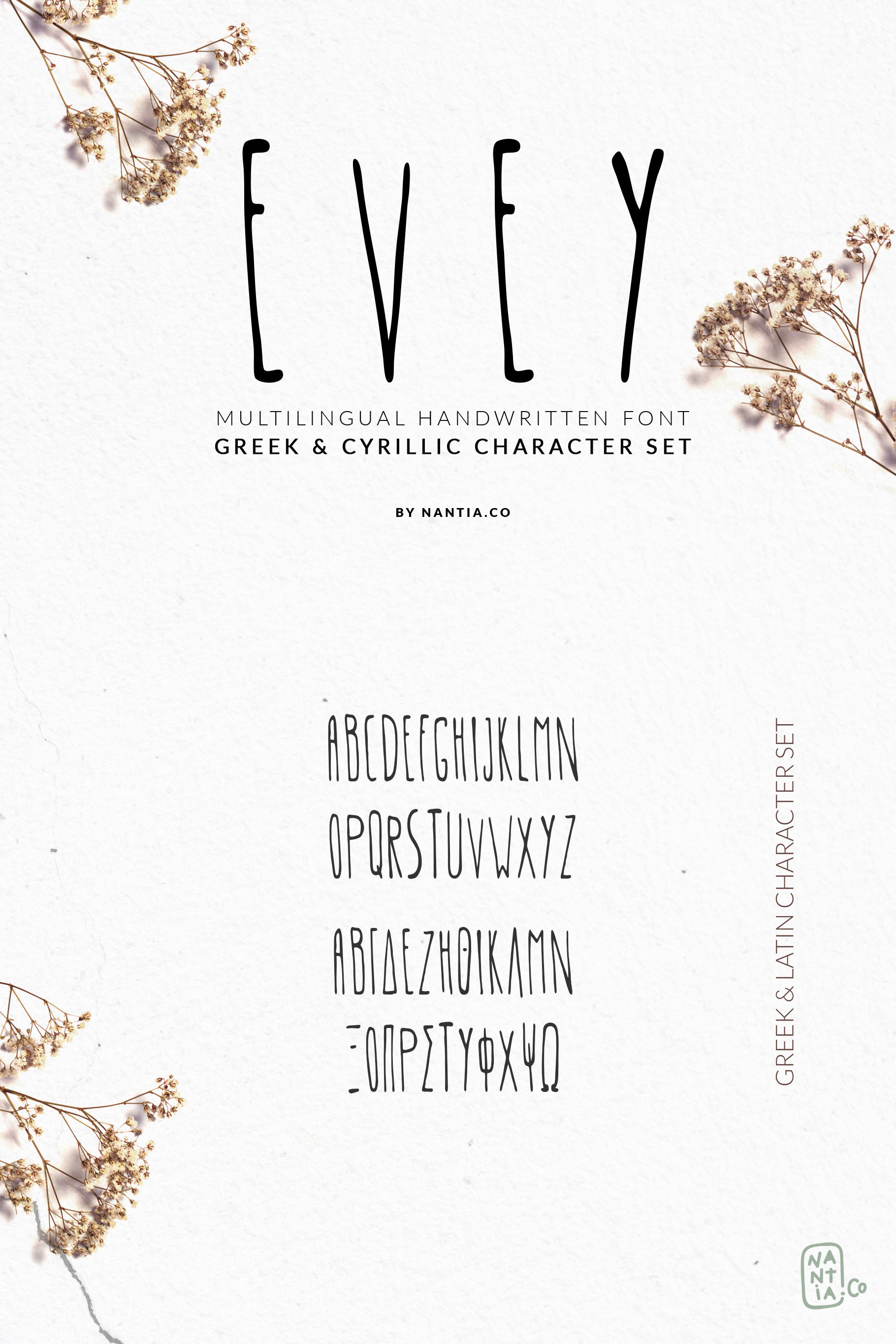
EVEY Greek Cyrillic handwritten Font
EVEY Handcrafted Multilingual Font | Latin / Greek / Cyrillic
I’m very glad to introduce Evey Handcrafted Multilingual Font | Latin / Greek / Cyrillic, a high quality, multilingual, handwritten font. The wide range of multilingual support of the font makes it ideal for international food packaging. Because of the unique style of the typeface, is the perfect design tool for natural organic product packaging and branding, as one can describe it as a logo font.
Of course, this lettering font is perfect for your graphic design needs like social media quotes, blog headers, and why not posters and stationery.
Finally, EVEY font supports over 20 languages: Albanian, Basque, Breton, Catalan, Chamorro, Chichewa_nyanja, Cyrillic, Danish, Dutch, English, Estonian, Finnish, French, Frisian, Galician, Greek, Hungarian, Italian, Lithuanian, Malagasy, Norwegian, Portuguese, Slovenian, Spanish, Swedish, Welsh
EVEY Handcrafted Multilingual Font | Latin / Greek / Cyrillic is a Greek font and an Extended Latin Font and that makes it a multilingual font. You can check that on the test drive below.